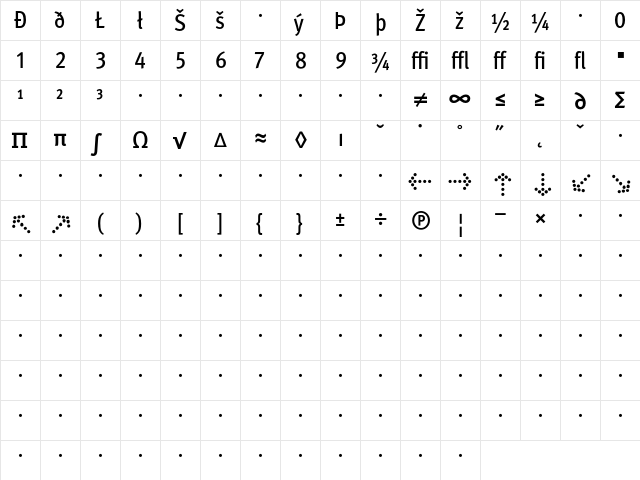
MetaCondMedium Expert
MetaCondMedium takes a measured approach to typography — its balanced proportions and neutral character make it a reliable workhorse for both digital and print work. Its narrow stance lets it pack a punch even in space-constrained designs.
Pro Tip: Pair MetaCondMedium with a font of contrasting weight or personality to build a more expressive typographic hierarchy.